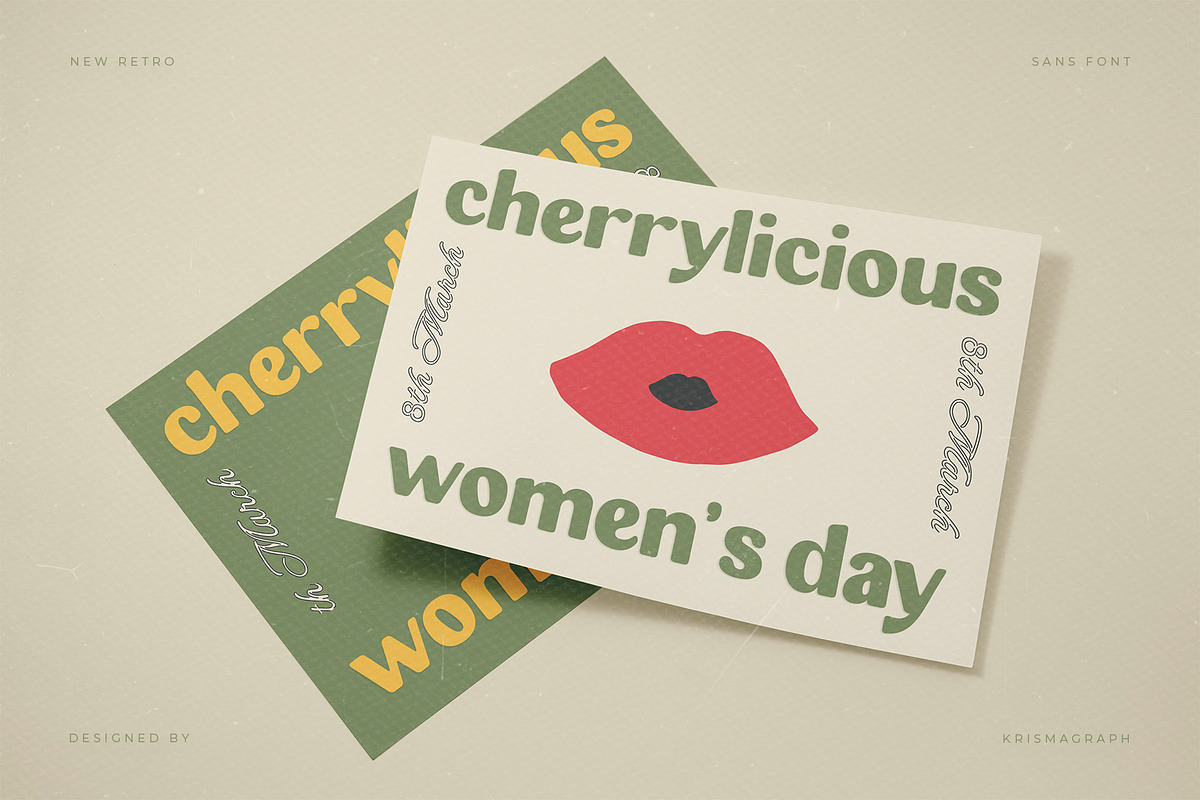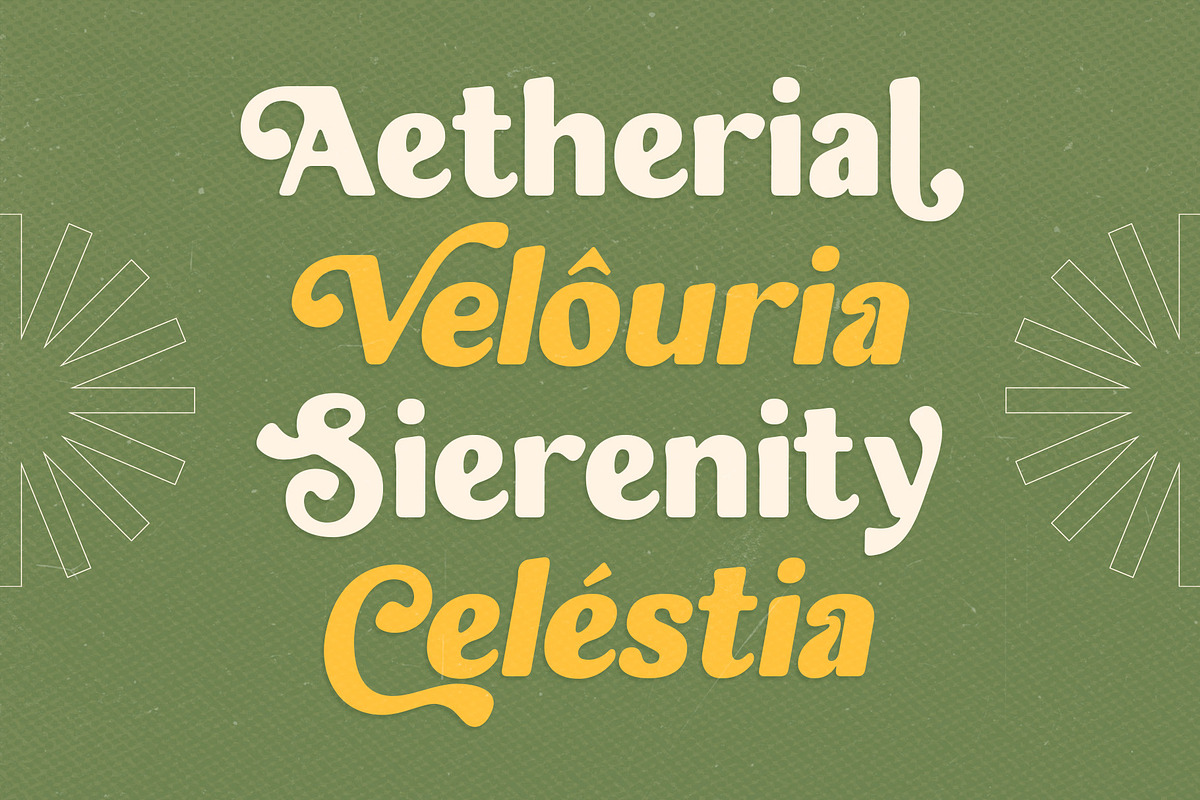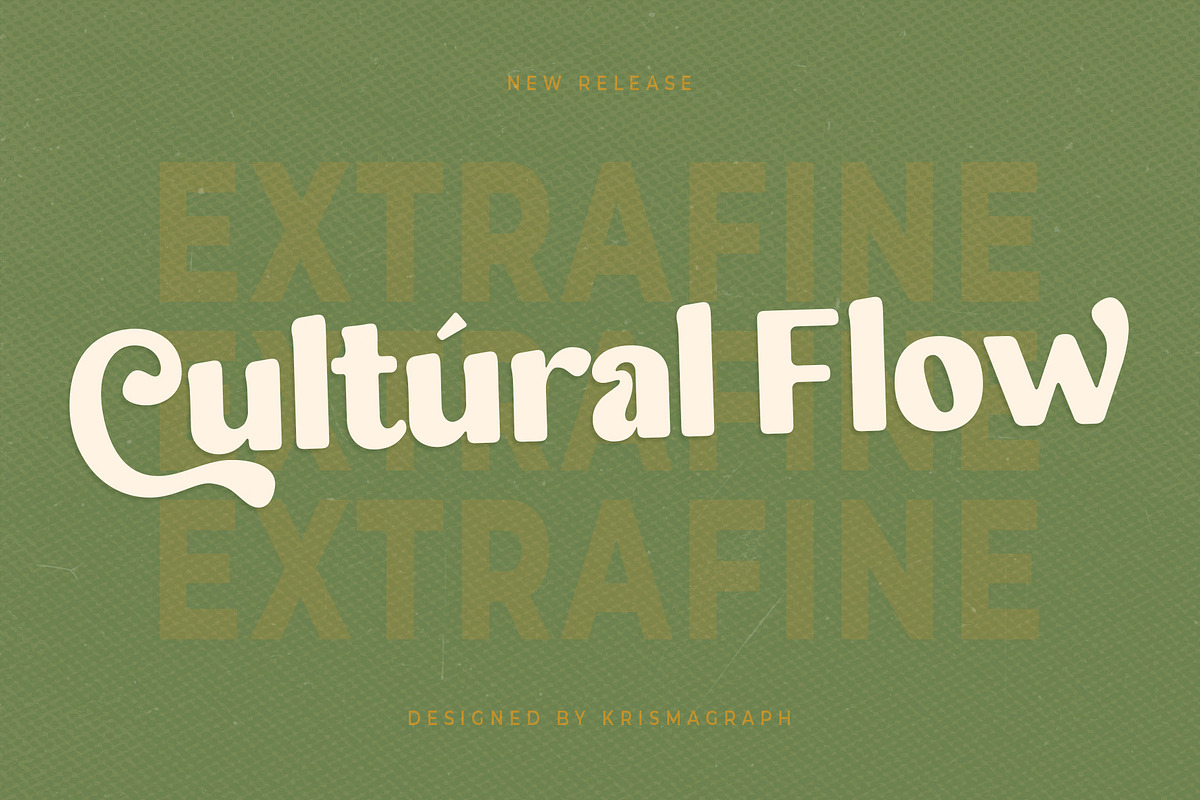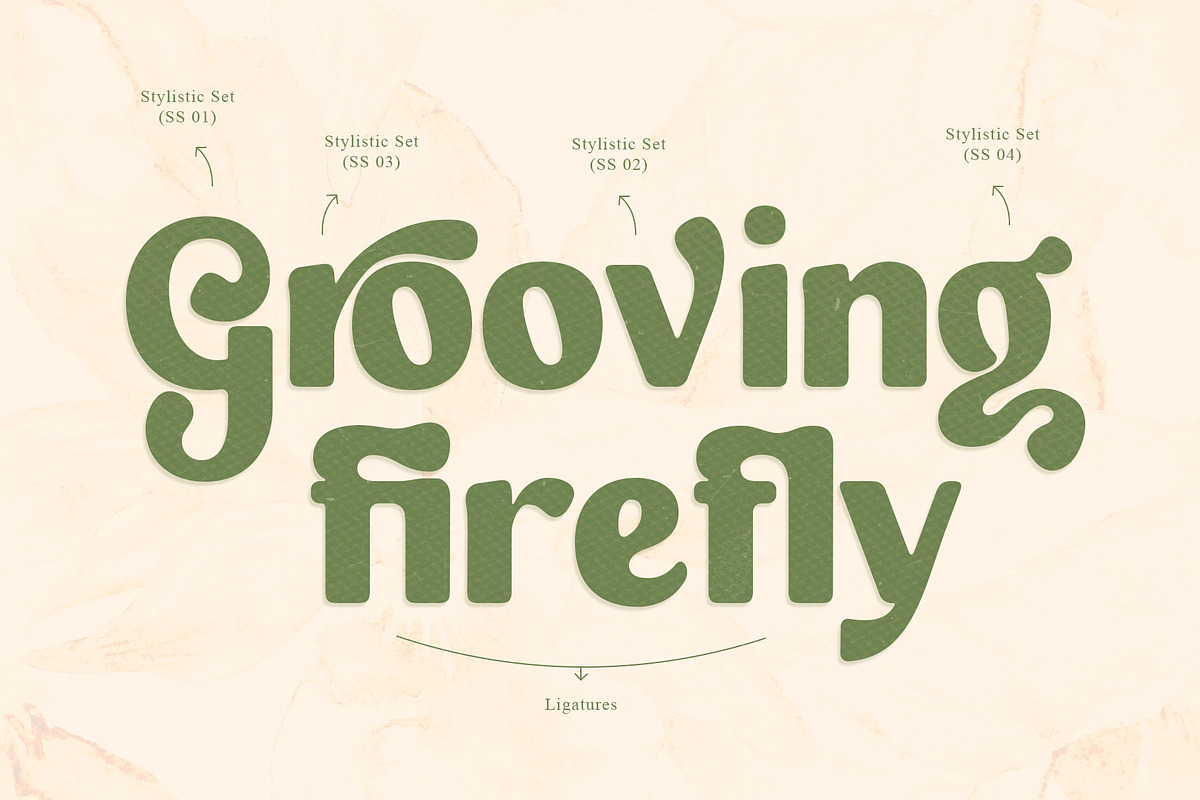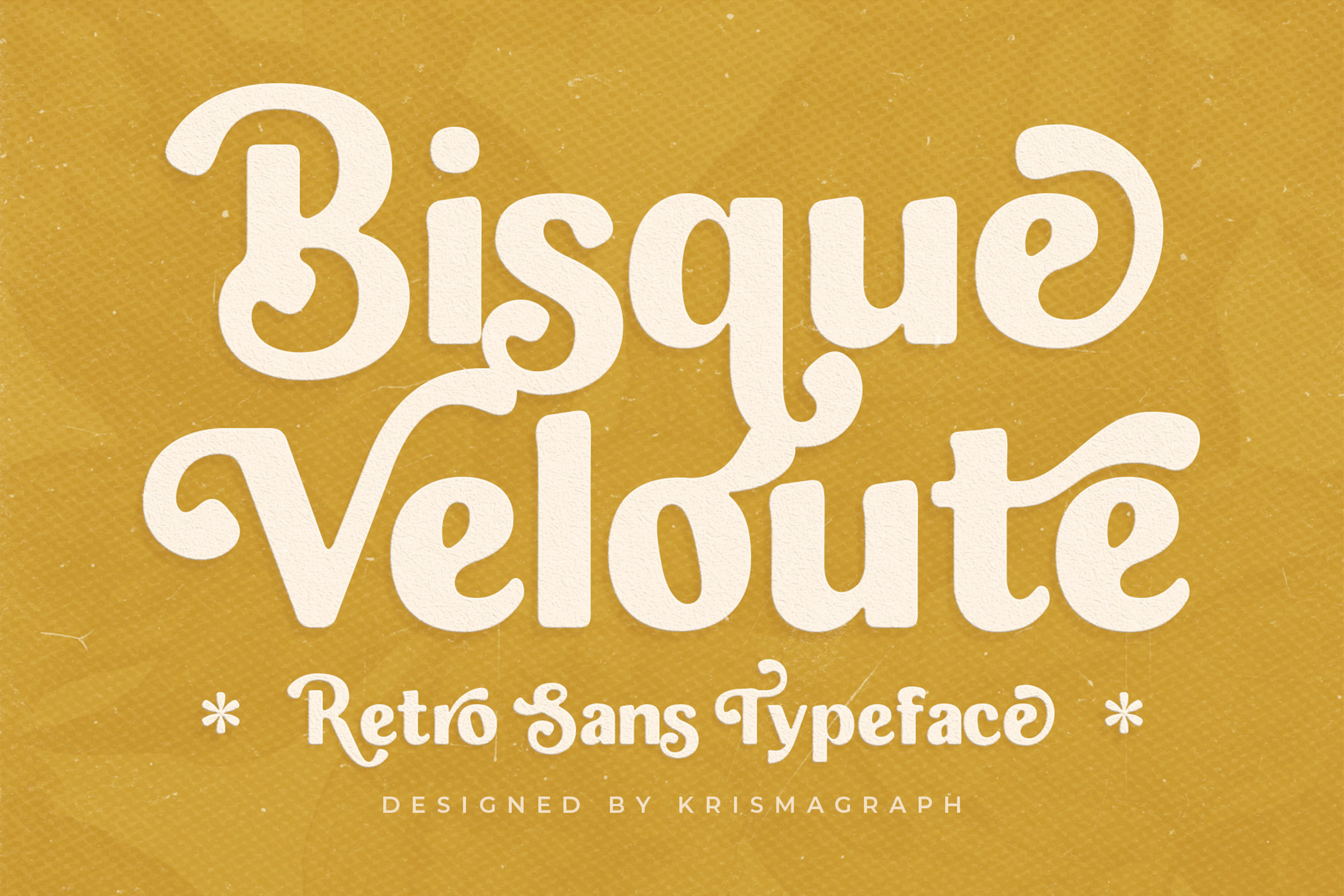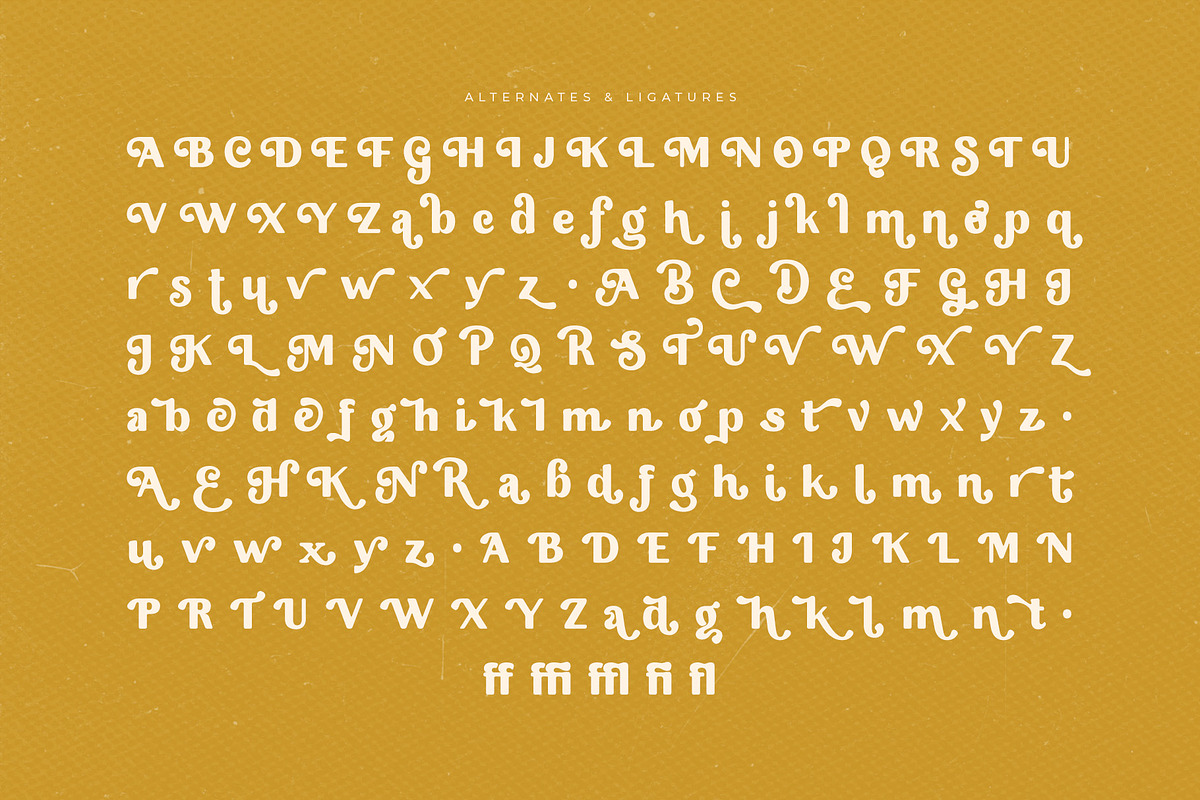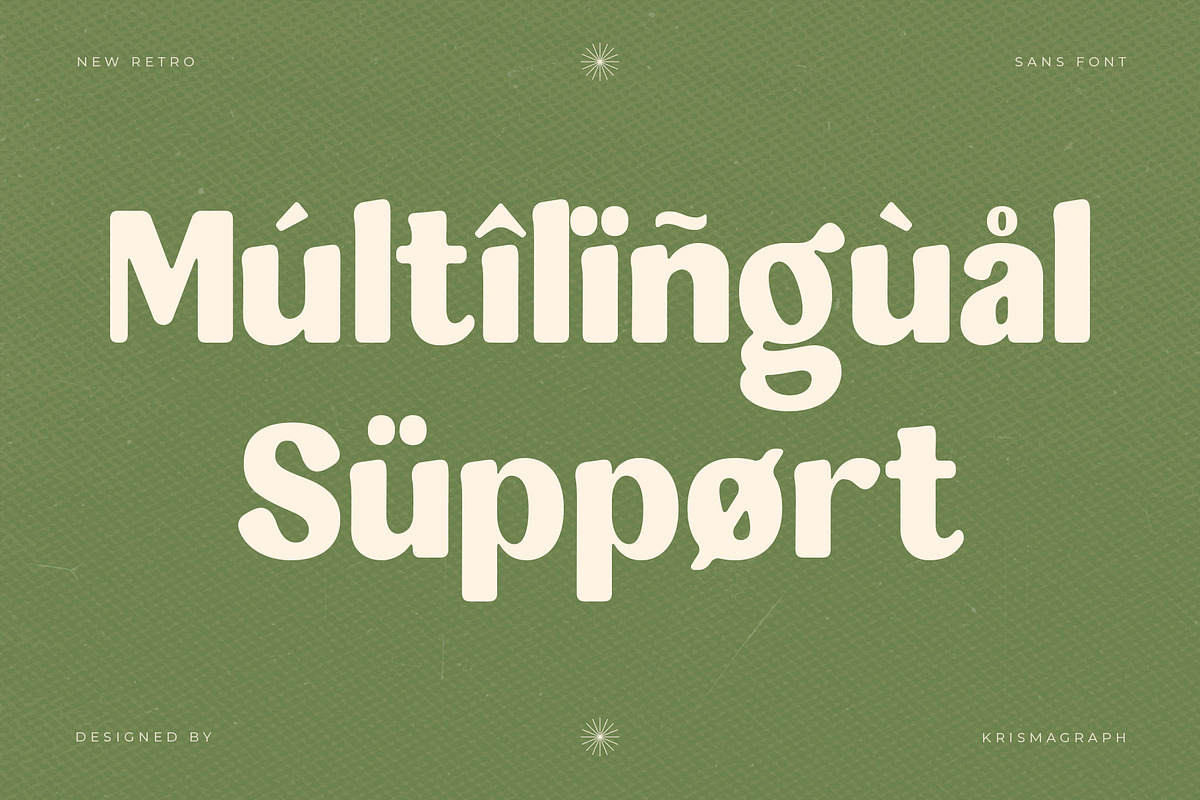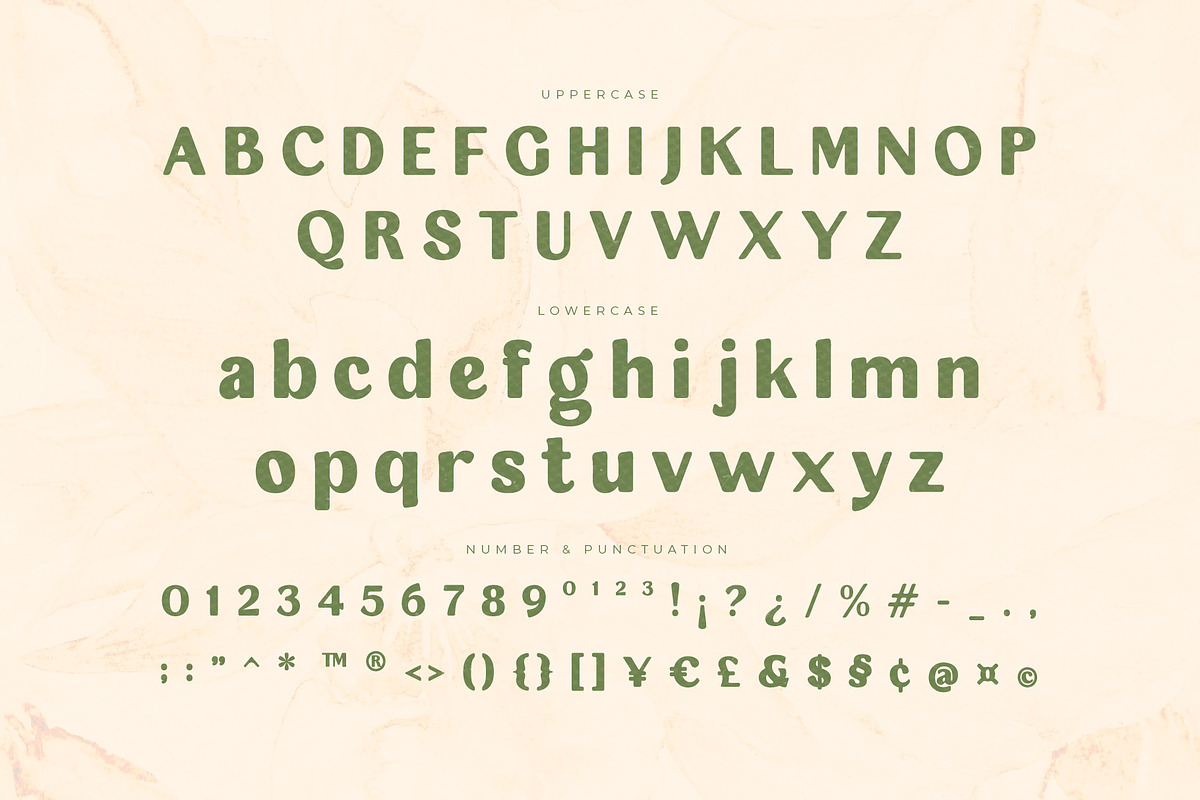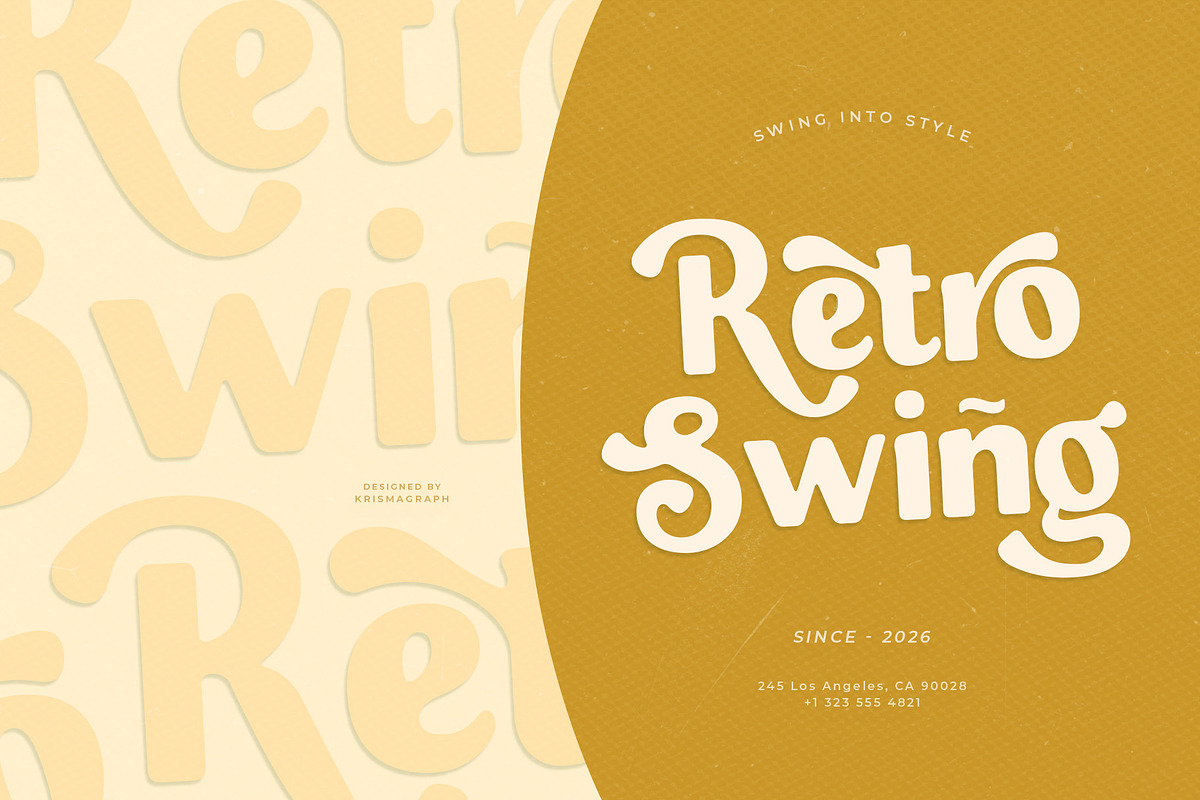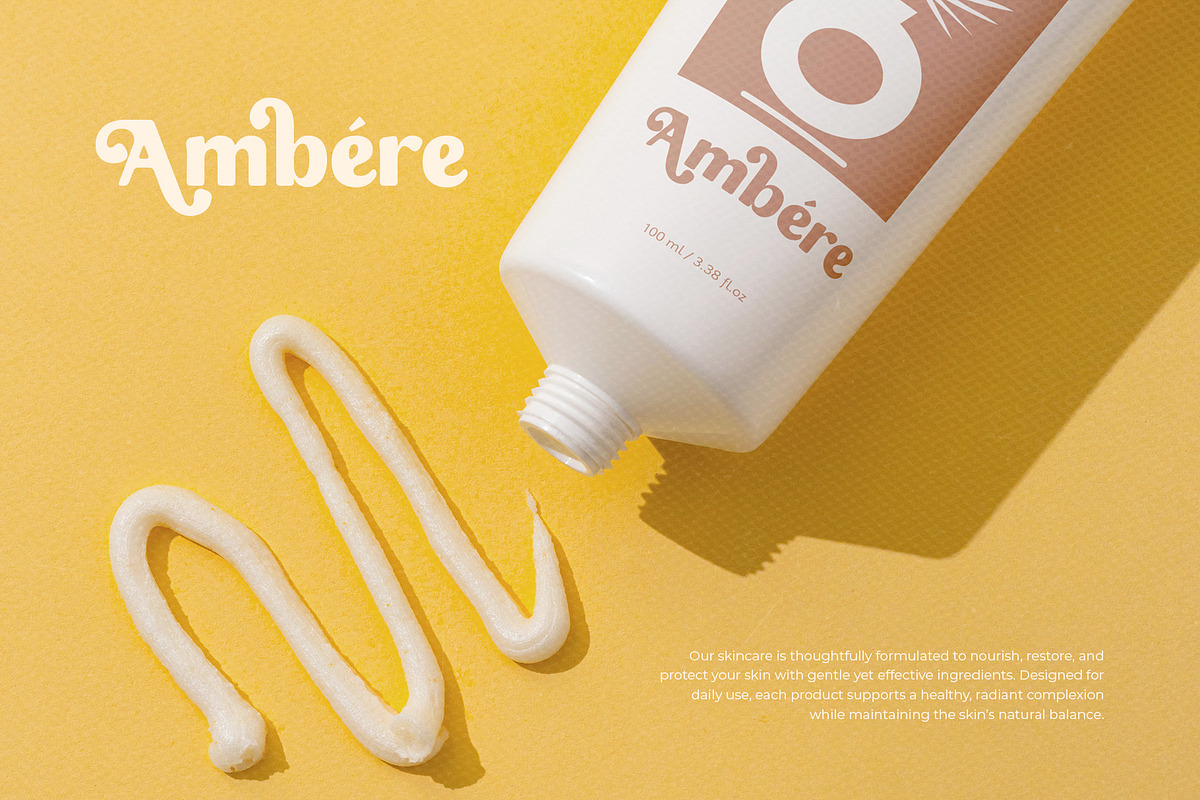
Bisque Veloute | Retro Sans Font
Bisque Velouté is a bold, joyful retro sans typeface that channels the groovy spirit of the 1960s and 70s with a distinctly modern sensibility. Its thick, fluid letterforms — complete with swirling terminals and bubbly curves — create an unmistakably warm and playful personality that stops the scroll and commands the shelf. Perfect for food and beverage branding, artisan product packaging, vintage-inspired poster design, music festivals, café menus, street culture campaigns, and any creative project that demands personality over convention. Bisque Velouté pairs beautifully with clean sans-serifs to create vibrant typographic compositions. This is the font for brands that want to be remembered — because playing it safe has never been this delicious. Display Retro Sans style | Groovy swirling letterforms | Multilingual